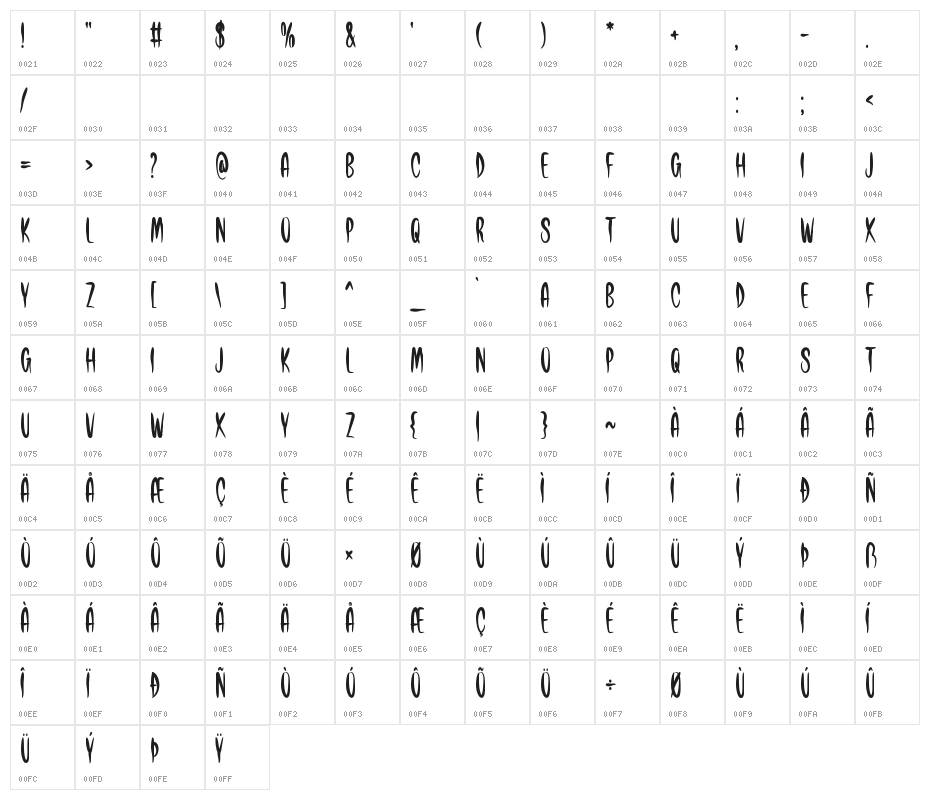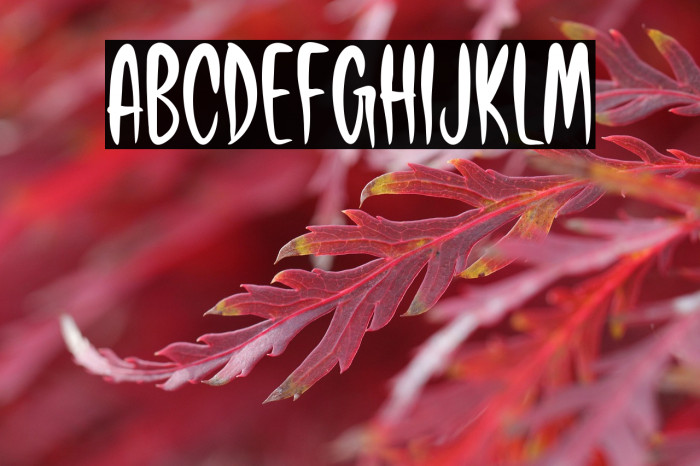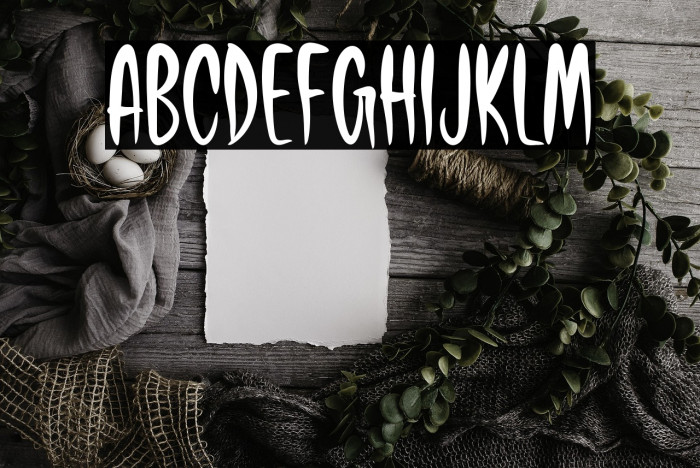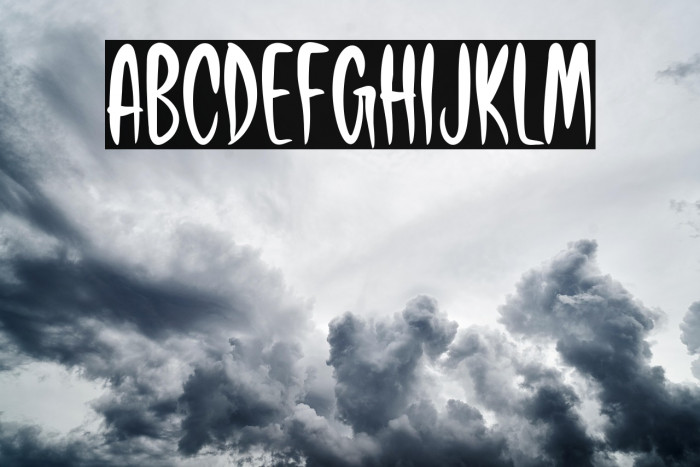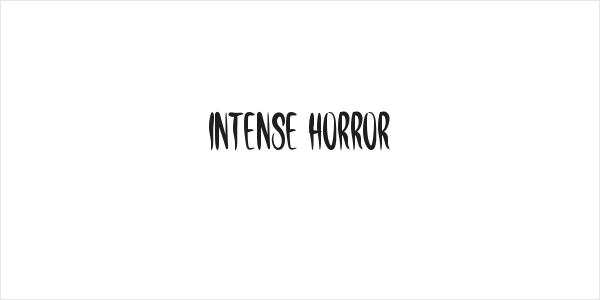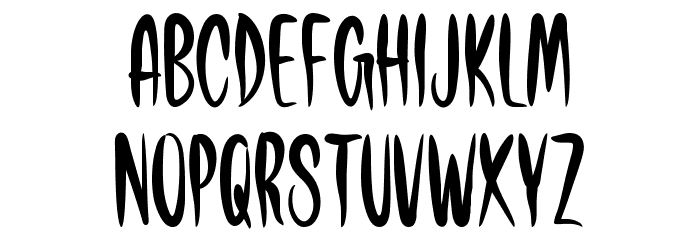
Intense Horror Font
Intense Horror Description
This font features a bold, expressive style with a hand-drawn appearance, characterized by its irregular and dynamic strokes. The letters have a slightly jagged edge, giving them a raw and energetic feel. The uppercase and lowercase letters maintain a consistent height, while the numbers and special characters complement the overall design with their unique flair. This font is ideal for creating a dramatic and intense atmosphere, making it suitable for horror-themed projects or any design that requires a bold statement.
A bold, hand-drawn font with dynamic, jagged strokes for dramatic impact from Uncategorized fonts.
- Font: Intense Horror
- Proposed Projects: Ideal for horror movie posters, Halloween event flyers, edgy branding, and album covers.
- Contrast: High
- Overall Style: Decorative
- Use Case: Headlines, Logos